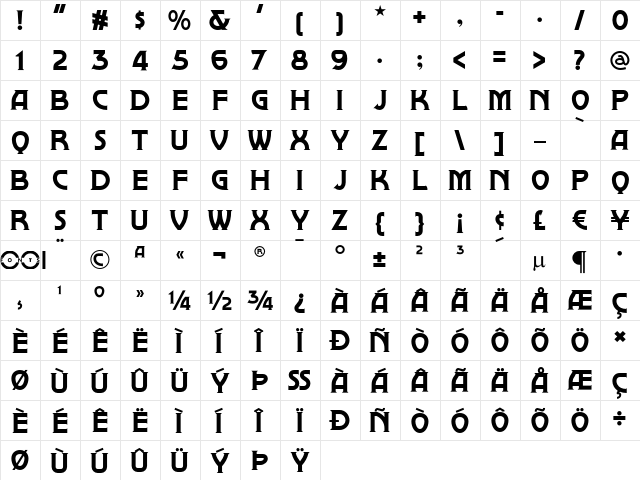
Brownwood NF Regular
| Foundry | Nick's Fonts |
| Designer | Nick Curtis |
Design Context for Brownwood NF Typeface
Brownwood NF taps into classic Western woodtype traditions — bold, characterful, and impossible to ignore.
Perfect for barbecue restaurants, country music branding, vintage poster design, and rustic packaging.
Font Pairing: Combine Brownwood NF with a simple slab or neutral sans — period-accurate companions reinforce the vintage feel without competing for attention.
Pro Tip: Pair Brownwood NF with aged textures or distressed backgrounds to amplify its vintage personality.